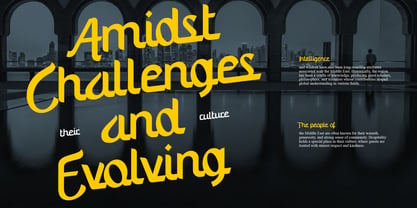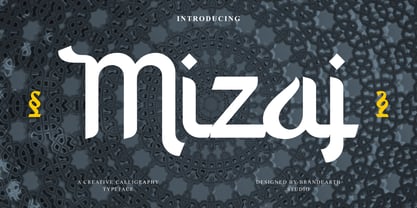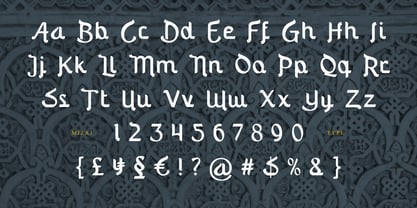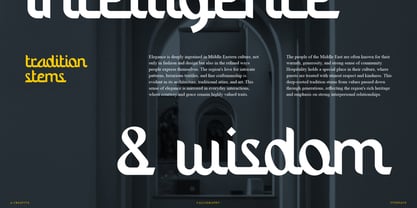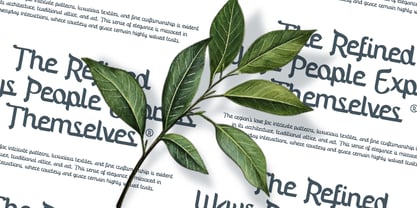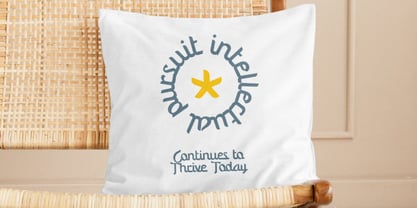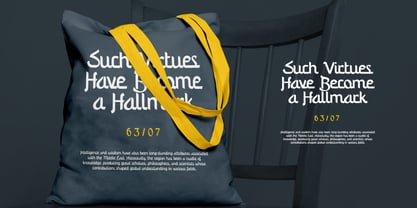
Mizaj
by Brandearth
The Mizaj Font Family was designed by Moch Rasjid Wiyono and published by Brandearth. Mizaj contains 1 styles. More about this family
Mizaj is a refined creative calligraphy typeface inspired by Islamic art, arabesque geometry, and classical manuscript lettering. The letterforms feature smooth curves, sculpted terminals, and subtle ornamental details that create a graceful and luxurious visual rhythm. Relevance and Use Cases is perfect for branding projects, luxury packaging, mosque or faith-based visuals, Eid greetings, editorial headlines, cultural posters, book covers, wedding stationery, premium logos, social media graphics, and sophisticated print layouts.
Designers: Moch Rasjid Wiyono
Foundry: Brandearth